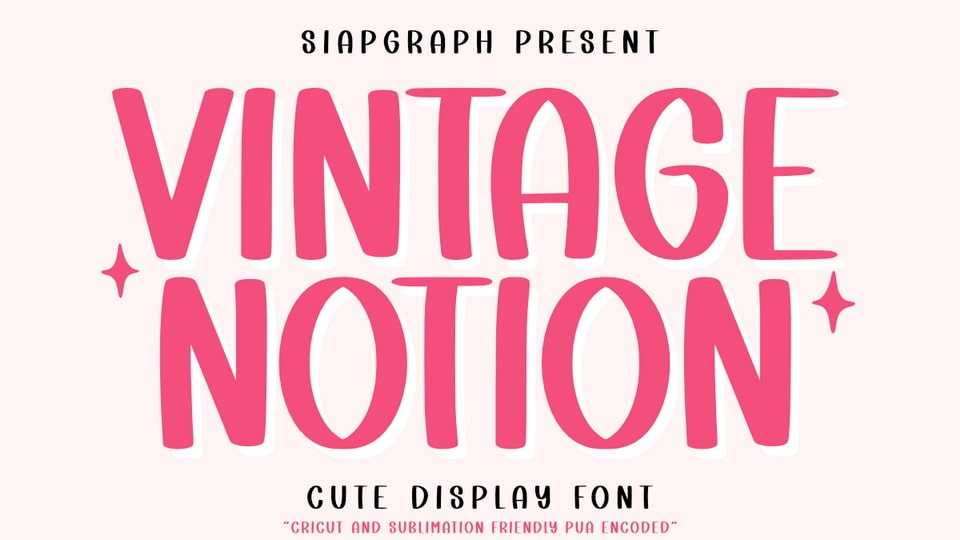
Download Vintage Notion font, a cute and playful display typeface that blends a retro feel with a modern twist. The bold and cheerful letterforms make your designs stand out with a charming, handcrafted look.
Designer: SiapGraph